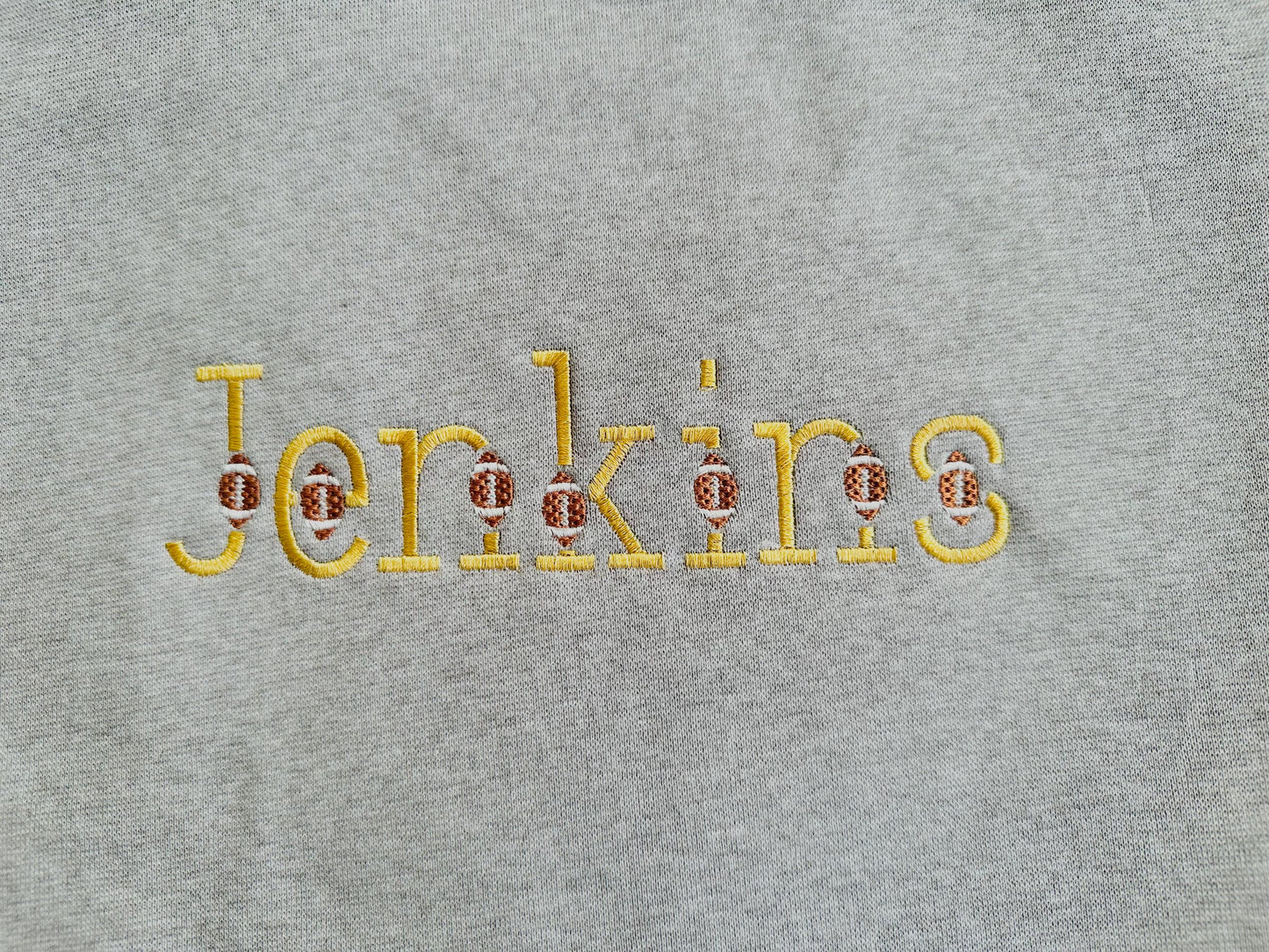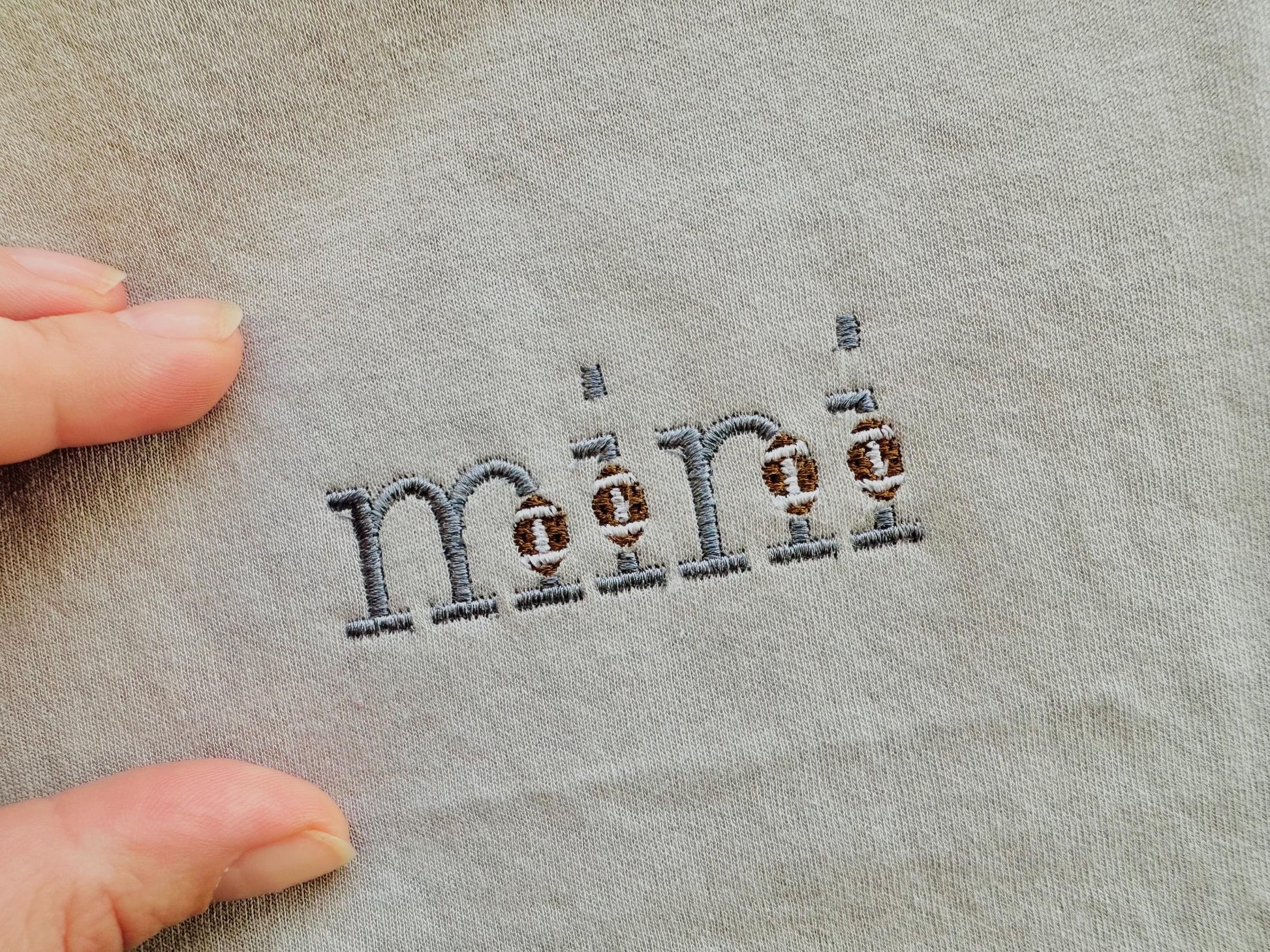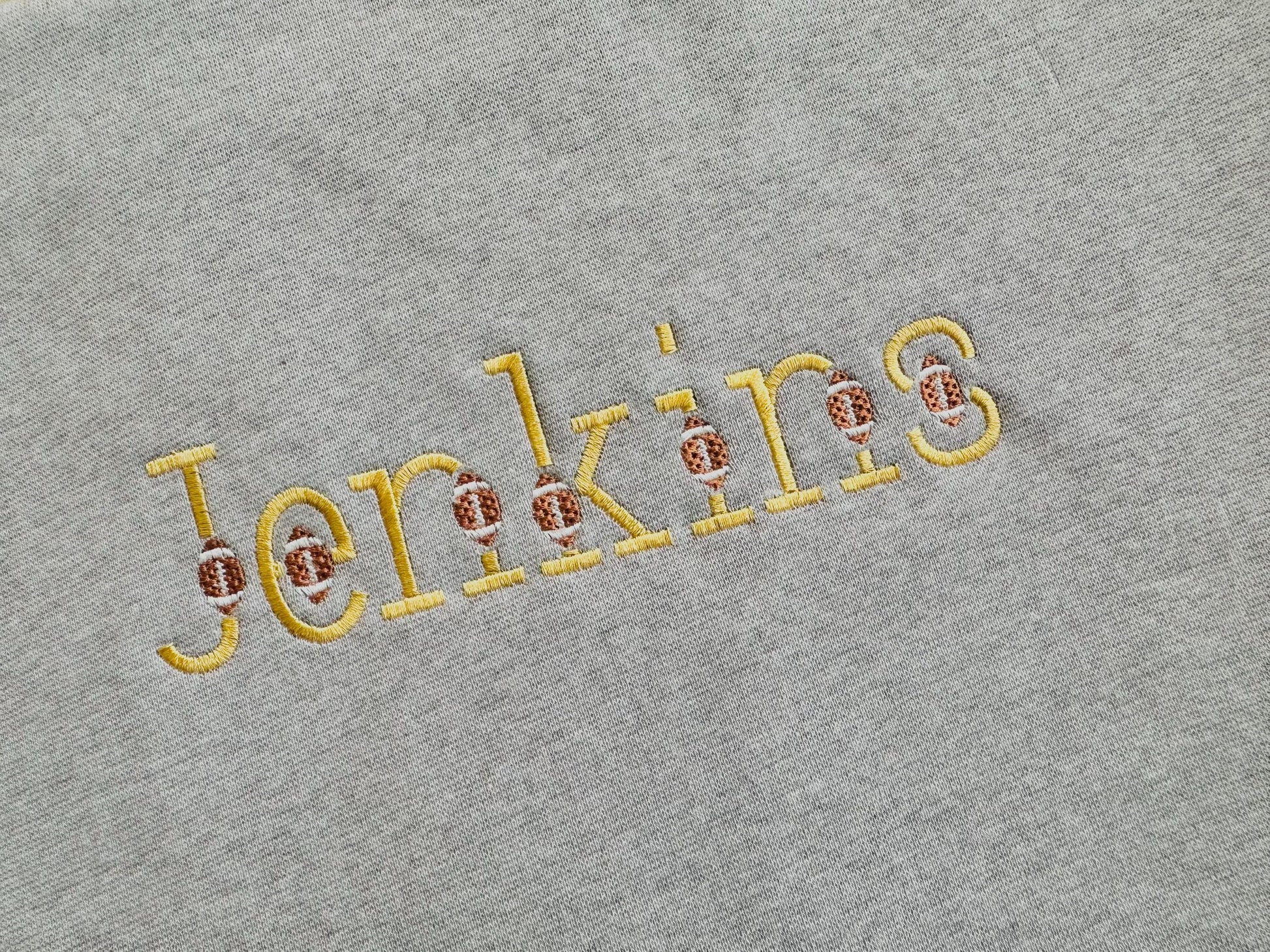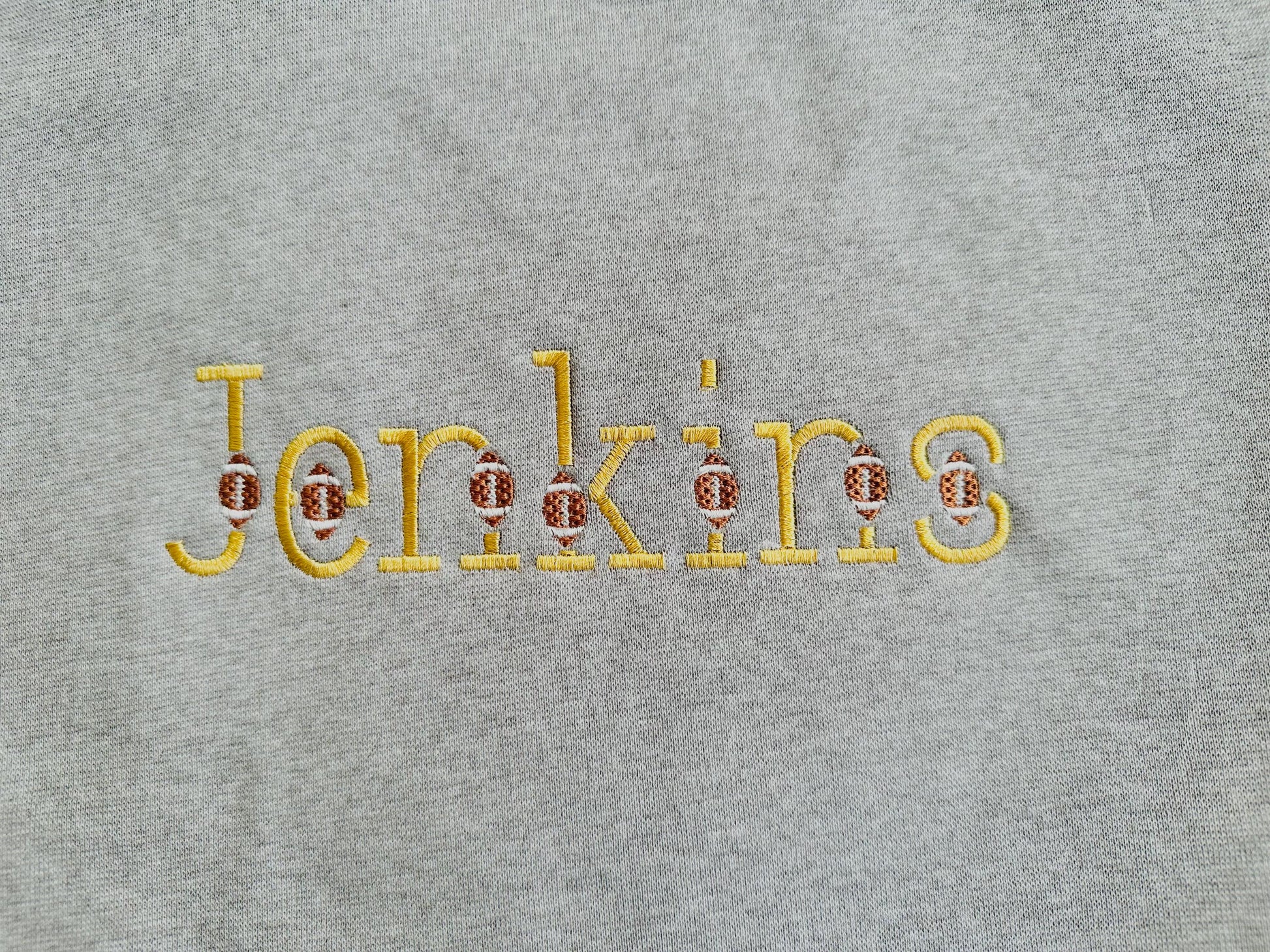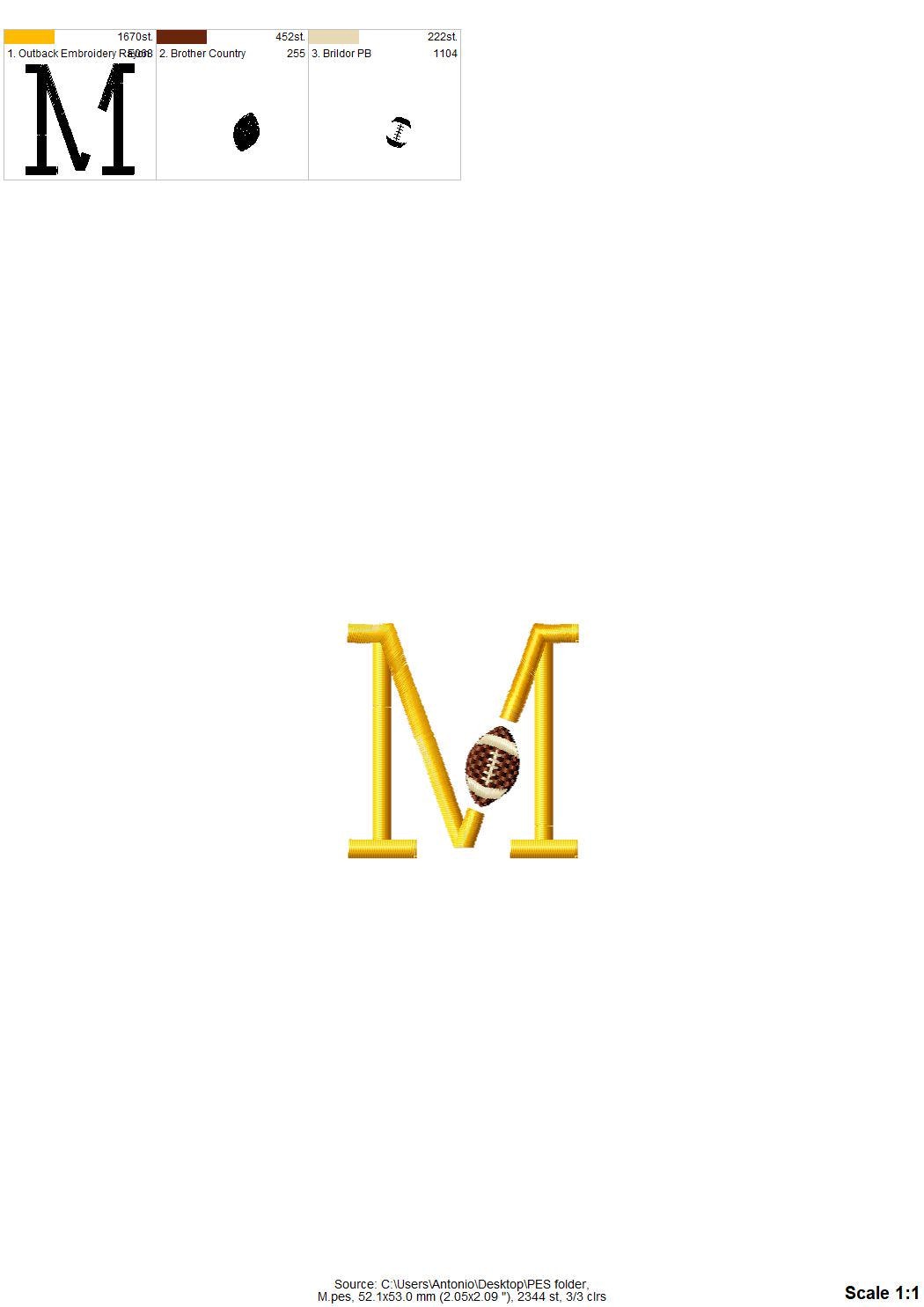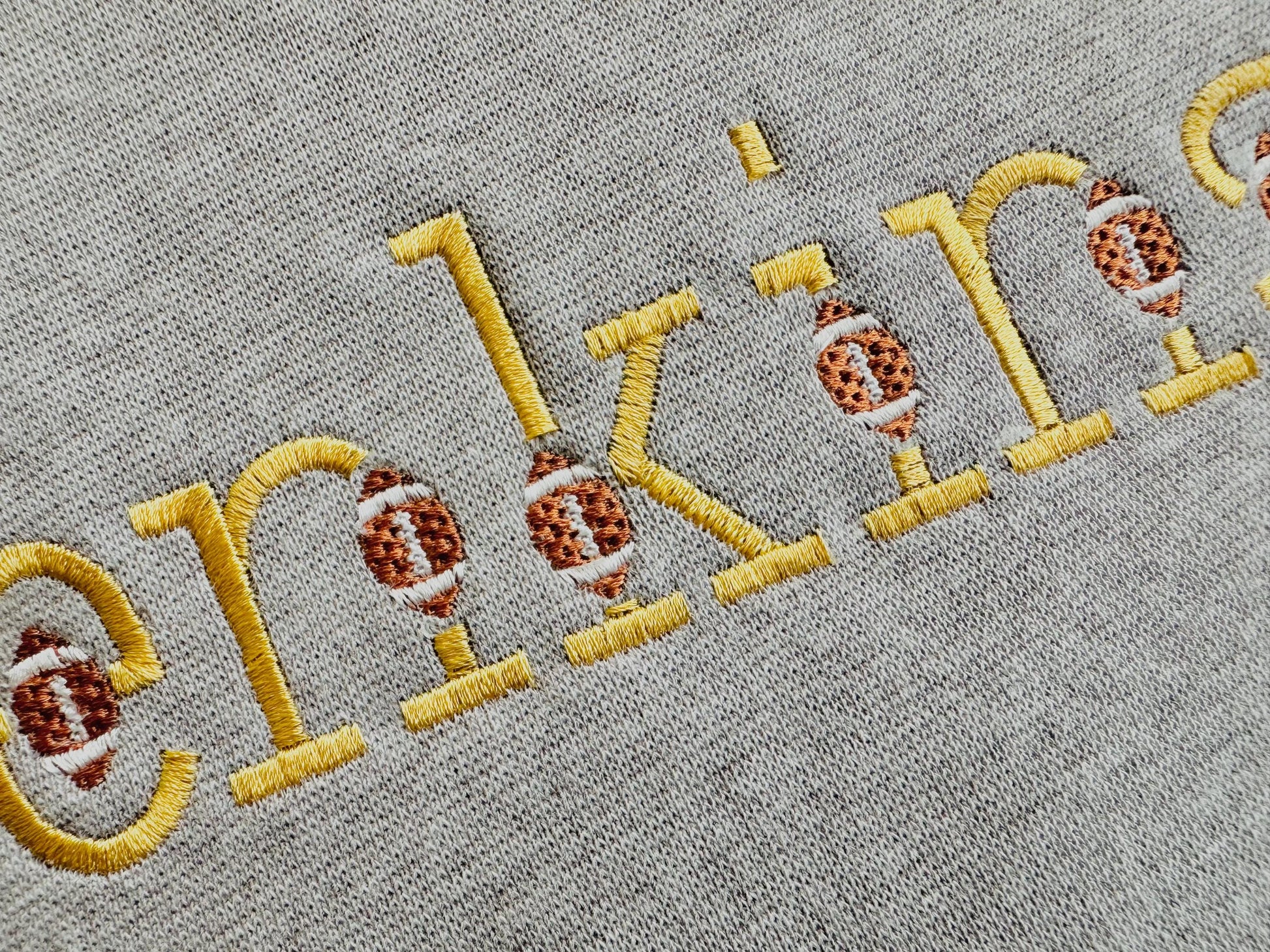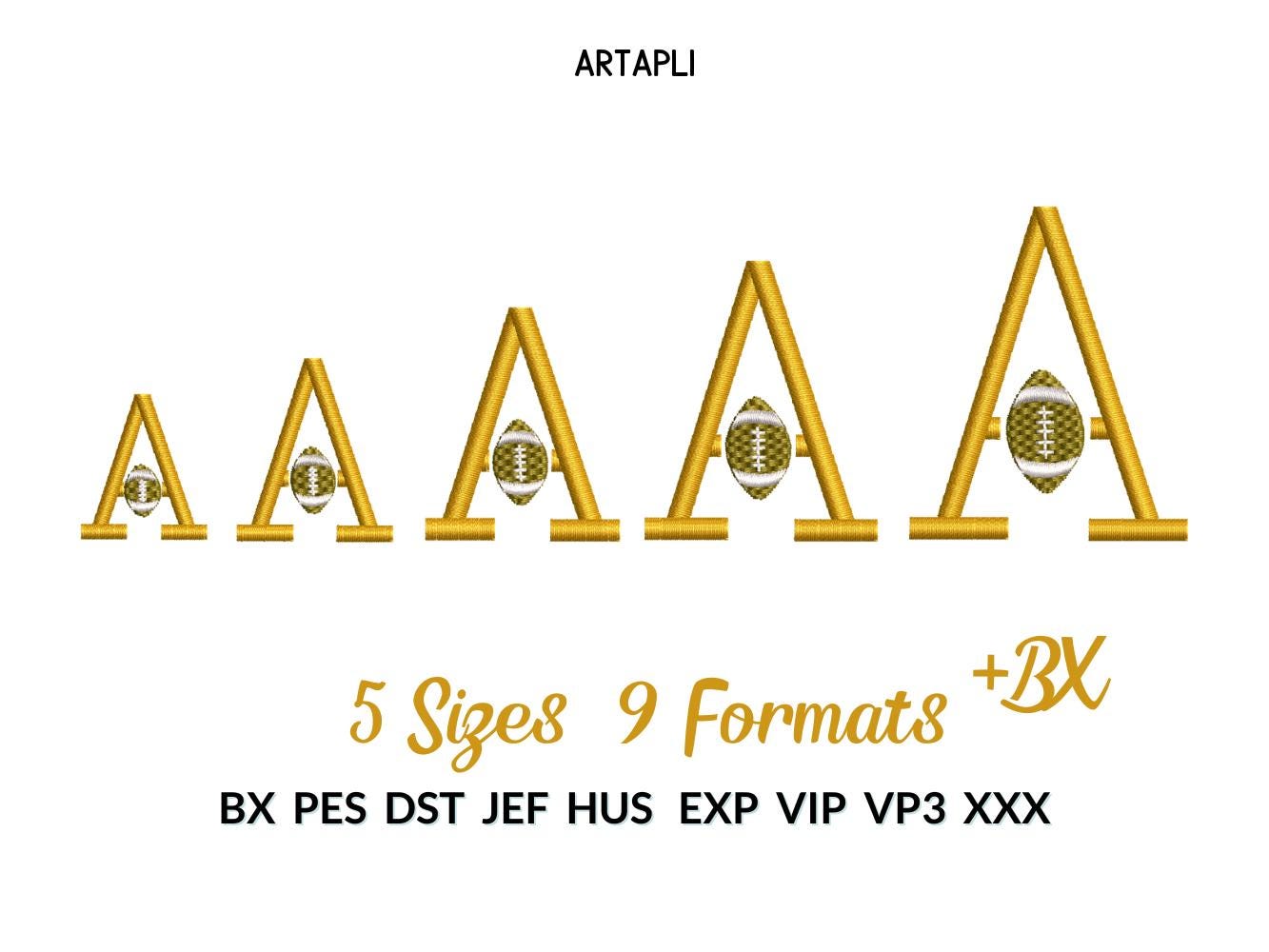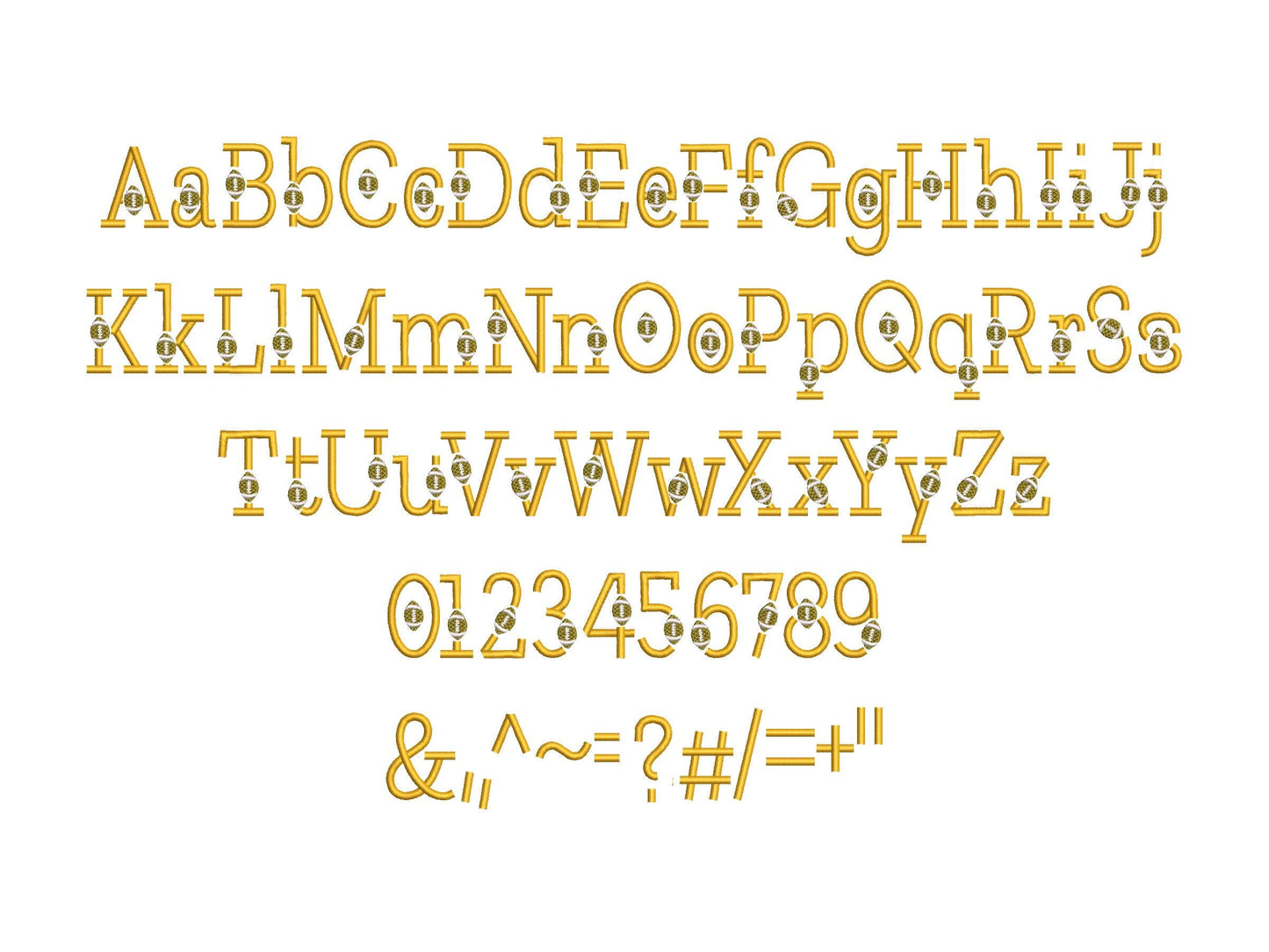
Or click to open the linkA set of two satin stitch sports block fonts: one with a football and one plain. Great for boys', dads' and team shirts, caps and bags.
Both fonts have uppercase and lowercase letters, numbers 0 to 9 and punctuation. Five sizes: 1, 1.3, 1.7, 2 and 2.4 inches.